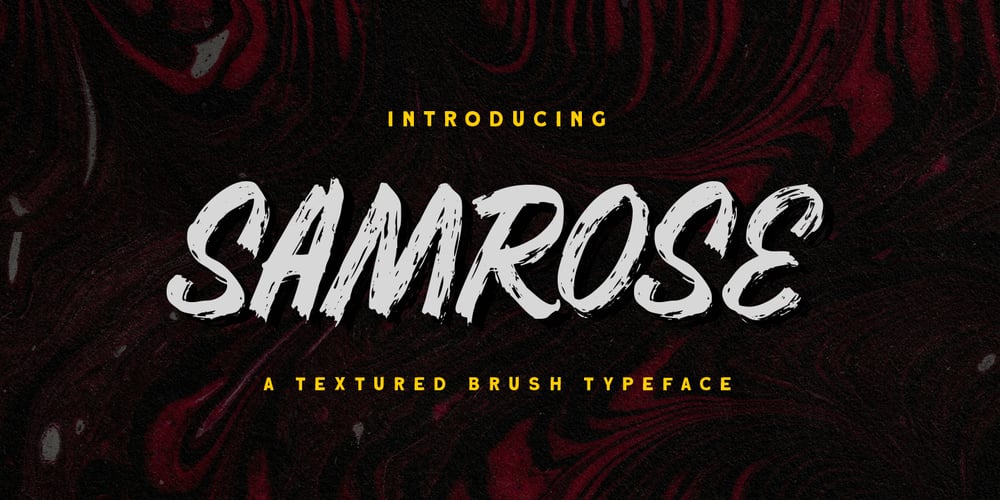
Samrose
Samrose font
Samrose Font Family was designed by Hendry Juanda and published by Letterhend. Samrose contains 1 styles and family package options. Introducing, Samrose. A unique textured brush typeface with bold and strong feel. This font perfectly made to be applied especially in logo, and the other various formal forms such as invitations, labels, magazines, books, greeting / wedding cards, packaging, fashion, make up, stationery, novels, labels or any type of advertising purpose.Features : uppercase & lowercase (alternates) numbers and punctuation Ligatures and alternates multilingual PUA encoded We highly recommend using a program that supports OpenType features and Glyphs panels like many of Adobe apps and Corel Draw, so you can see and access all Glyph variations.Email us to letterhend@gmail.com if you need something! Happy Designing!